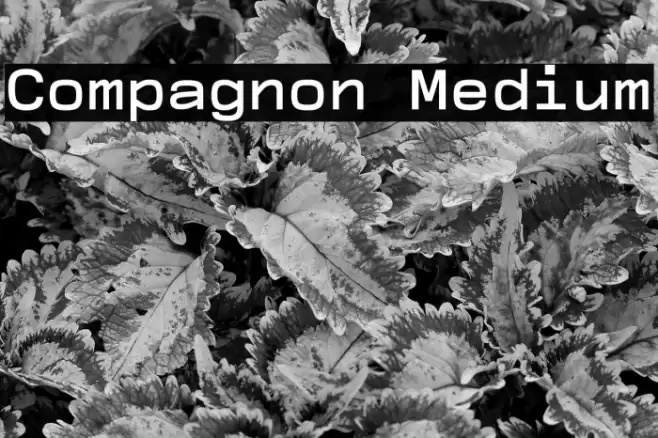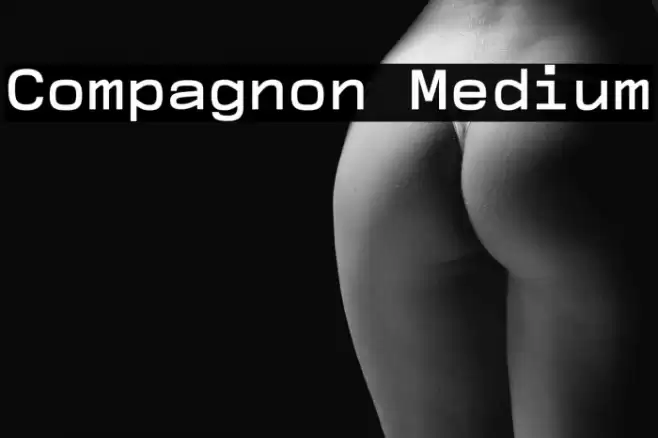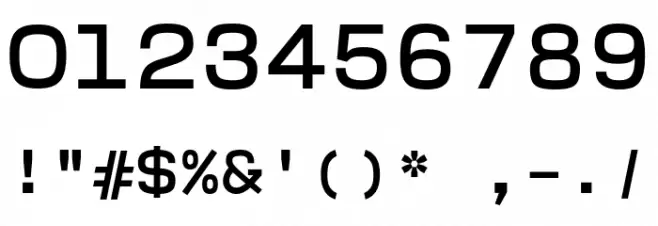
Compagnon Medium Font
Compagnon Medium Description
This typeface features a clean and modern design with a geometric structure. The characters are well-balanced with consistent stroke widths, providing a uniform appearance. The uppercase letters are bold and assertive, while the lowercase letters maintain a friendly and approachable look. The numerals are clear and easy to read, making them suitable for various applications. The special characters are distinct and complement the overall style of the typeface. This font is versatile, offering a professional yet contemporary feel, suitable for both digital and print media.
A modern, geometric typeface with consistent stroke widths and a professional appearance from Regular fonts.
- Proposed Projects: Ideal for branding, corporate materials, digital interfaces, and editorial design.